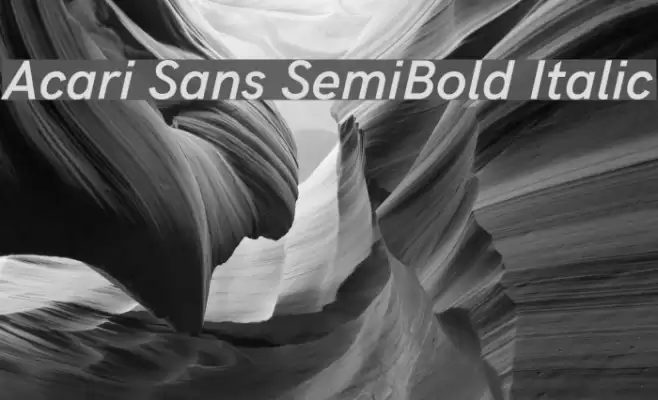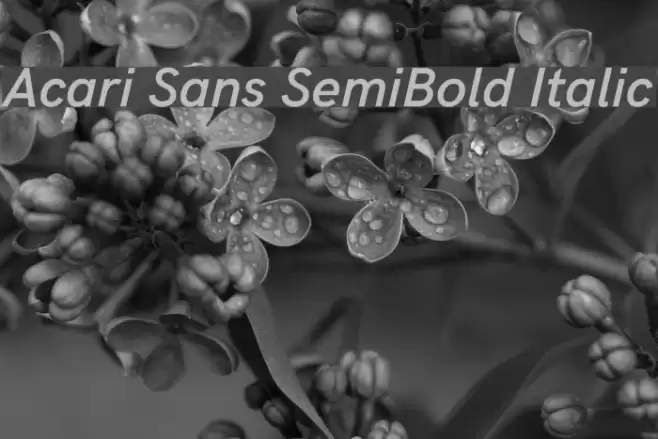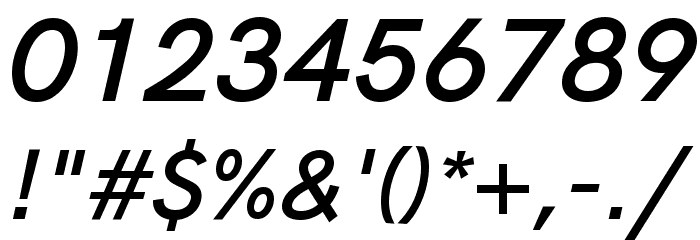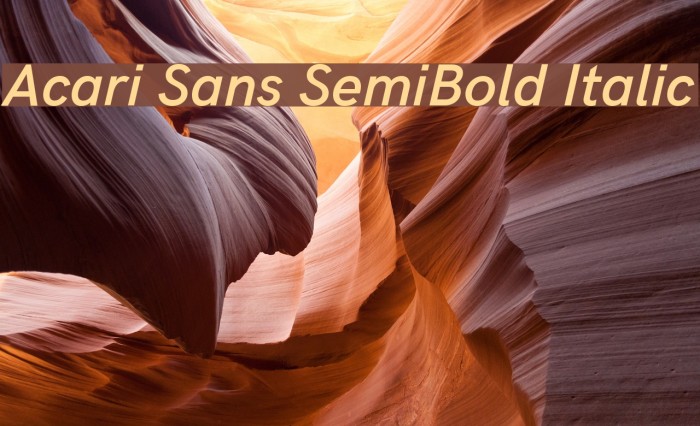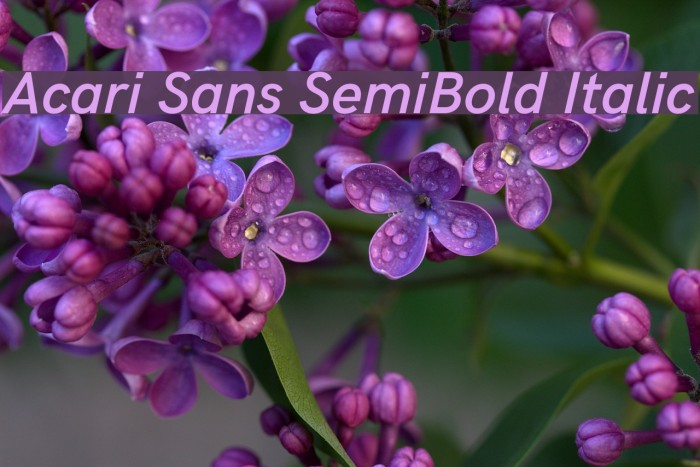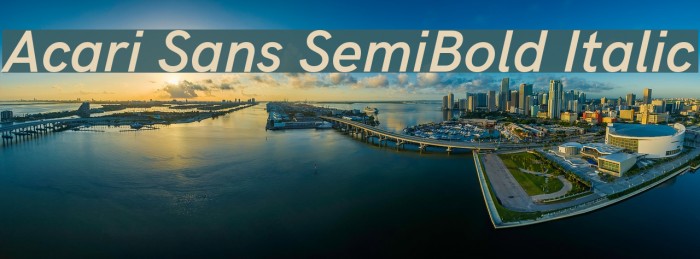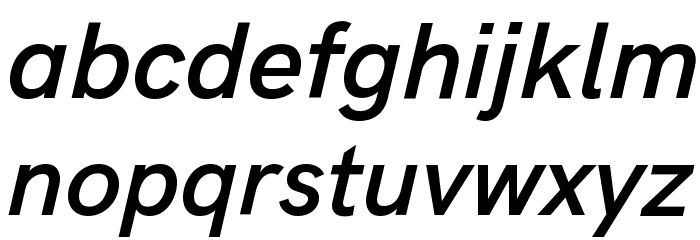
Acari Sans SemiBold Italic Font
Acari Sans SemiBold Italic Description
This font exudes a modern and sleek aesthetic with its semi-bold weight and italic style. The characters are slightly slanted, adding a dynamic and forward-moving feel. The sans-serif design ensures a clean and uncluttered appearance, making it highly legible. The strokes are consistent, with medium contrast that balances between boldness and subtlety. The character spacing is normal, providing a harmonious flow between letters. This font is versatile, suitable for both digital and print media, and can effectively convey a contemporary and professional tone.
A modern, semi-bold italic sans-serif font with medium contrast and normal spacing from Uncategorized fonts.
- Proposed Projects: Ideal for branding, advertising, website headers, and editorial design where a modern and professional look is desired.
- Use Case: Headlines, Logos, Branding